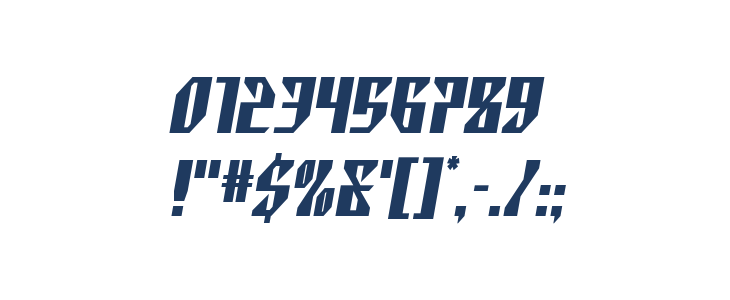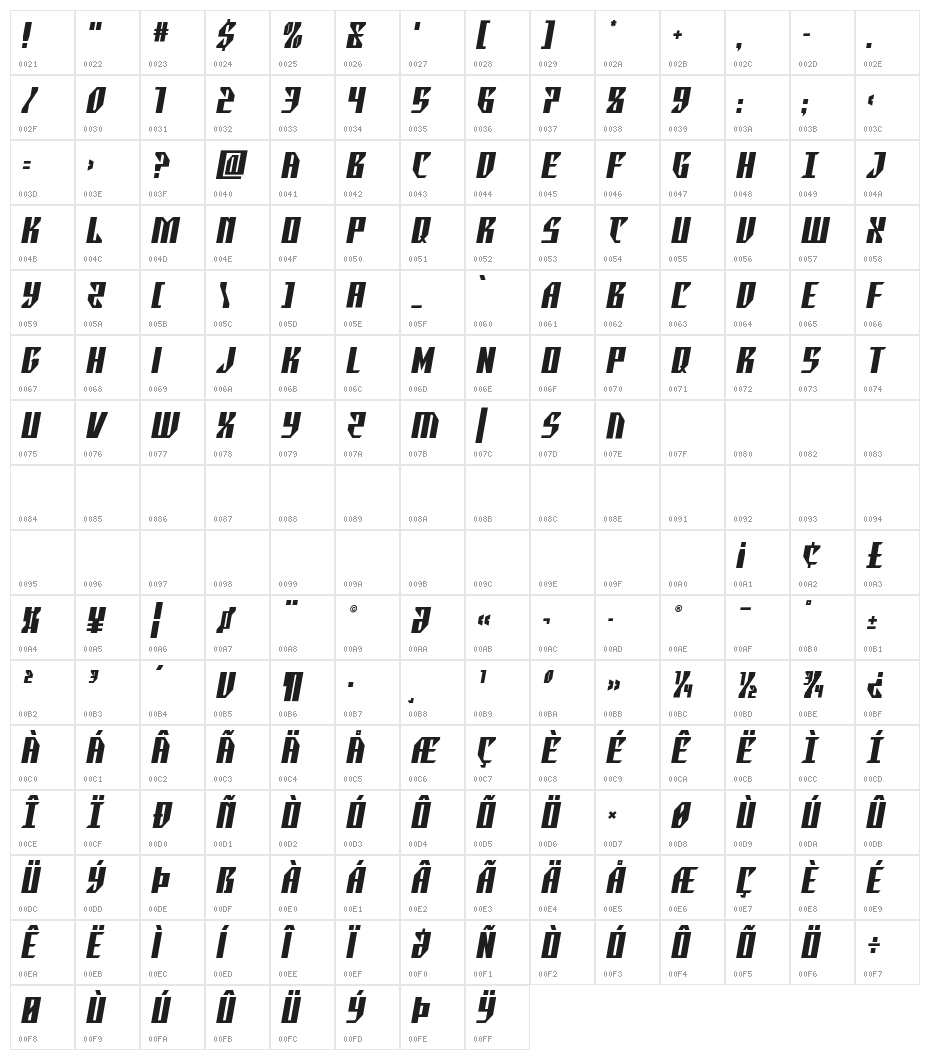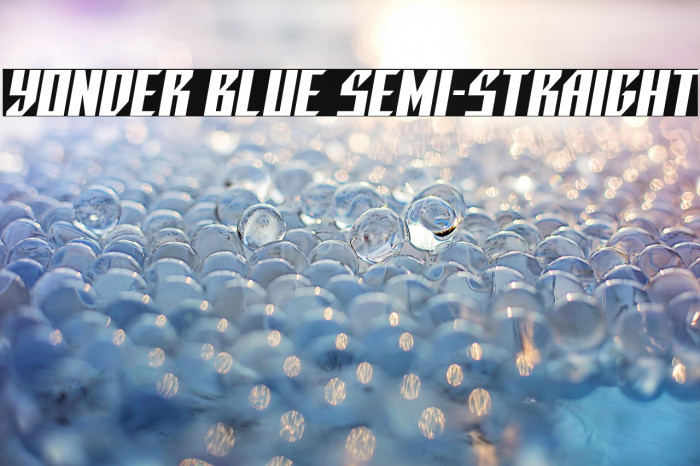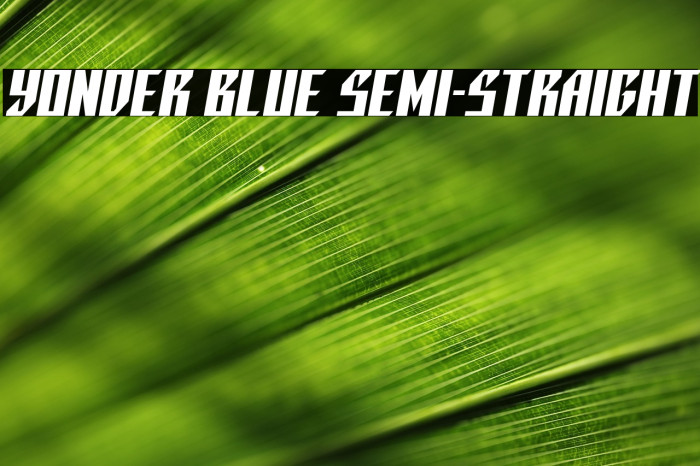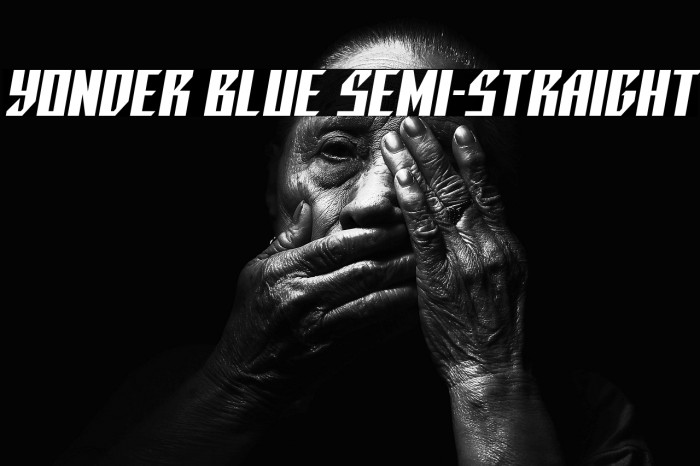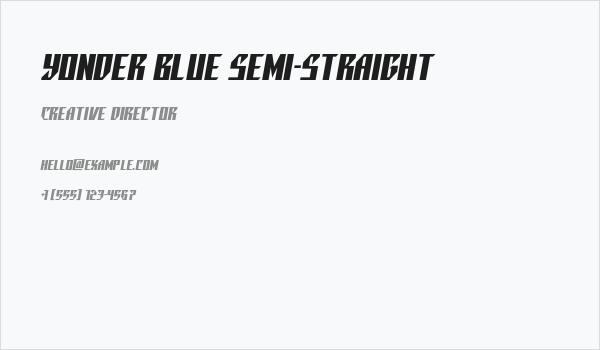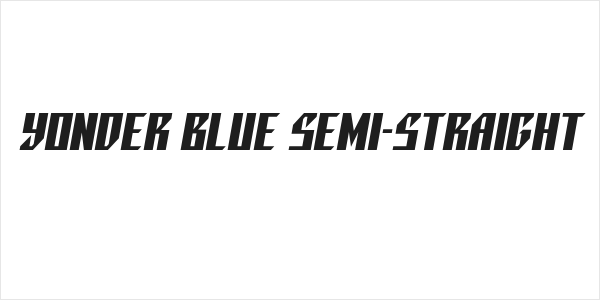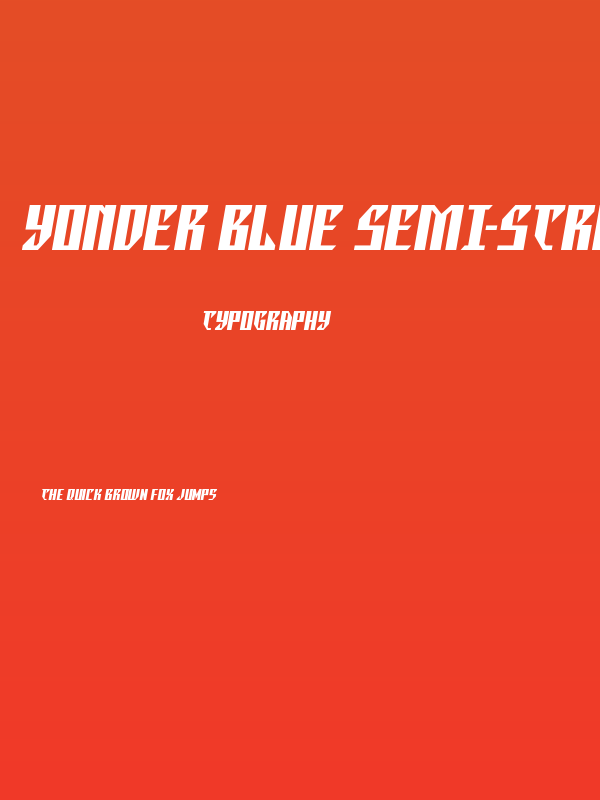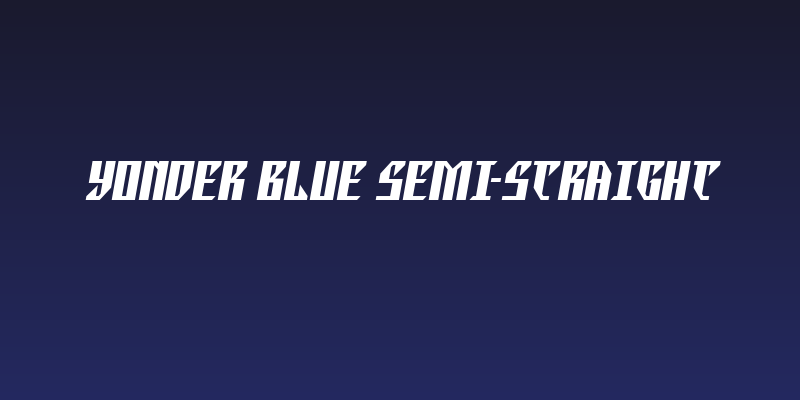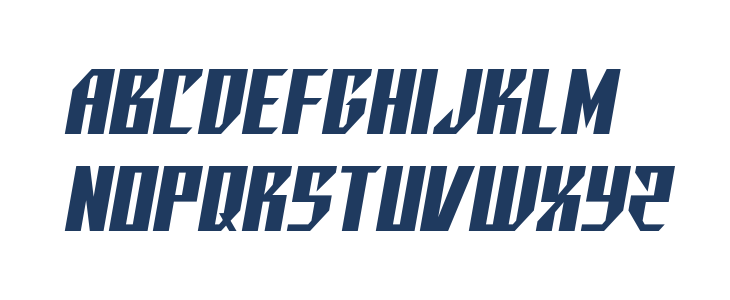
Yonder Blue Semi-Straight Font
Yonder Blue Semi-Straight Description
This font features a bold and dynamic design with sharp, angular edges and a strong geometric influence. The characters are slightly condensed, giving a compact and powerful appearance. The uppercase letters exhibit a consistent height, while the lowercase letters maintain a similar style, ensuring uniformity across text. The numerals are distinct and align well with the overall aesthetic, making them easily readable. Special characters are crafted with the same attention to detail, providing a cohesive look. The font's striking appearance makes it suitable for attention-grabbing headlines and modern design projects.